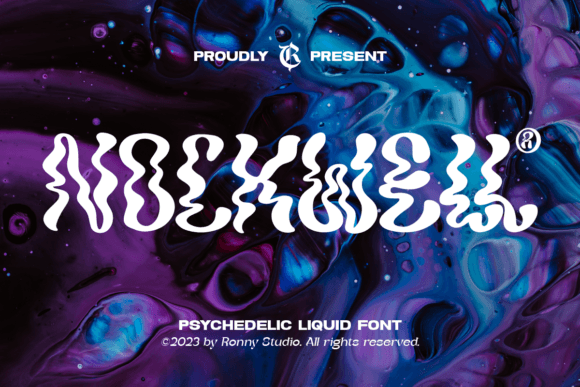
Unleash the Power of Nockwell: A Psychedelic Liquid Display Font to Elevate Your Designs
In a realm where creativity knows no bounds, there exists a font that defies convention and emboldens expression like no other – Nockwell. This mesmerizing psychedelic liquid display font, beautifully crafted by Ronny Studio, is a testament to the boundless possibilities of typographic art.
Nockwell is more than just a font; it's an artistic odyssey that takes you on a journey through a kaleidoscope of vibrant colors and dynamic forms. Its captivating design dances across the page, captivating the eyes and igniting the imagination. Whether you're a seasoned designer or just starting your creative journey, Nockwell is the perfect tool to unleash your inner artist and craft designs that leave a lasting impression.
Immerse yourself in a world of bold titles, captivating festival posters, eye-catching T-shirts and hoodies, or mesmerizing backgrounds. Nockwell's versatility knows no limits, making it the ultimate choice for designers seeking to make a statement. Its unique spacing and purposeful deformation create a sense of intrigue and excitement that draws viewers in and leaves them craving more.
With Nockwell, you'll discover a font that perfectly marries aesthetics and functionality. Its psychedelic liquid design adds a touch of whimsy and playfulness to any project, while its readability ensures that your message is communicated clearly and effectively. Whether you're designing for print or digital media, Nockwell's adaptability ensures that your creations shine across all platforms.